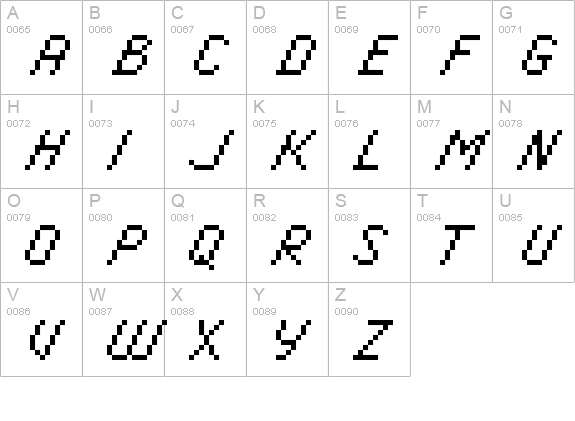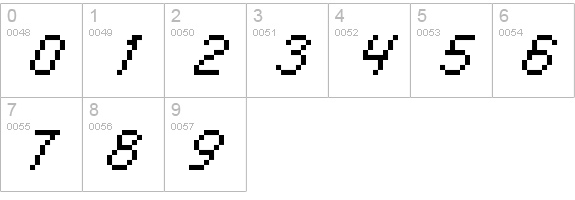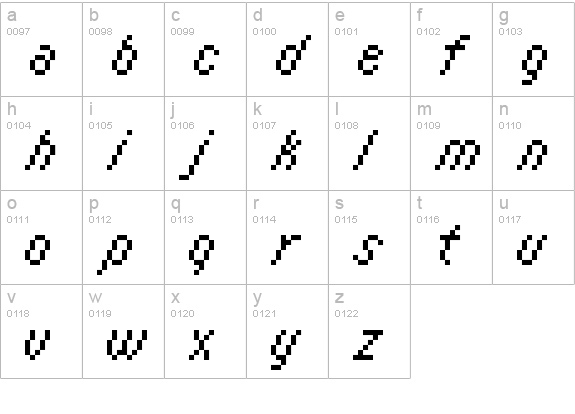
italic 08_56 is a distinctive, italic variant in the italic typeface family \xE2\x80\x94 well suited to design and typography projects.
The italic 08_56 font is a sleek and stylish typeface that adds a touch of elegance to any design. With its slanted and flowing letterforms, this font exudes a sense of sophistication and creativity. It is perfect for adding a touch of flair to logos, headlines, invitations, and more. One of the greatest features of the italic 08_56 font is that it is freely available to download at FontsMarket.com. This means that you can easily access and use this font in your projects without any cost. Whether you are a professional designer or a hobbyist, having access to high-quality fonts for free is a great advantage. The italic 08_56 font is not only visually appealing but also highly legible. Its well-designed letterforms ensure that your text is clear and easy to read, making it suitable for a wide range of applications. From websites and advertisements to print materials and branding, this font is versatile and adaptable to various design needs. When using the italic 08_56 font, you can expect a modern and contemporary look that will elevate your designs. Its unique style will make your projects stand out, leaving a lasting impression on your audience. Whether you are designing for a business, an event, or personal use, this font is sure to enhance the overall aesthetics of your work. So why wait? Download the italic 08_56 font for free at FontsMarket.com and start adding a touch of elegance and creativity to your designs today. Don't miss out on this opportunity to access a high-quality font that is both visually stunning and freely available.